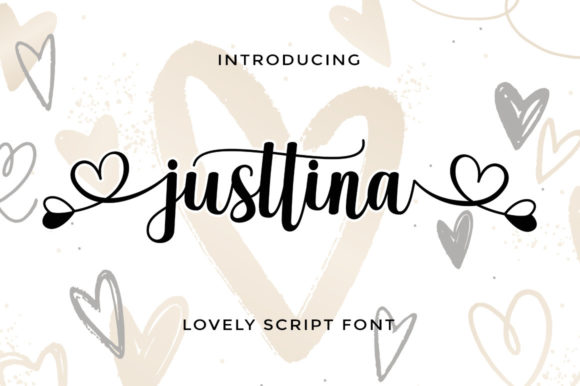
Justtina Script: Elegance for Modern Design
There’s a specific moment in every design project where the typography either elevates the entire composition or falls flat. You’ve likely experienced it—staring at a layout that has strong imagery and a solid concept, but the text feels sterile or disconnected. This is where a premium font like Justtina Script enters the conversation. It isn’t just a collection of letters; it is a design asset that brings a distinct personality to the table. As a gorgeous and romantic script font, Justtina Script bridges the gap between traditional calligraphy and modern digital requirements, offering a fluid, sophisticated aesthetic that feels personal yet polished.
For designers, entrepreneurs, and content creators, the choice of typeface is rarely just about looks; it is about communication. A font carries the weight of your brand identity before a single word is read. Justtina Script offers a specific visual language: one of elegance, intimacy, and artistic flair. If you are looking to add a touch of warmth to your marketing materials or elevate a logo design with a handwritten flourish, understanding how to harness the power of this typeface is essential.
The Anatomy of Romance and Style
Visually, Justtina Script is defined by its flowing, connected letterforms that mimic natural handwriting. It falls into the category of a script font, but it leans heavily into a modern calligraphy style. The strokes are fluid, featuring varying weights that simulate the pressure applied by a real pen or brush. This variation in line thickness adds depth and texture, preventing the text from looking flat or mechanical. The "personality" of the font is undeniably romantic and soft, yet it maintains a level of clarity that is crucial for professional use.
One of the standout features of Justtina Script is its versatility in expressing emotion. Unlike a stiff sans serif font, which communicates efficiency and structure, this handwritten font communicates emotion and creativity. The letters often feature gentle loops and swashes that suggest movement. However, because it is a premium font designed for professional output, it avoids the illegibility often found in free script alternatives. The x-height is generous enough to ensure readability, even when used in shorter paragraphs or descriptive subheadings.
For those working on brand identity, this typeface serves as a voice for brands that want to appear approachable, luxurious, or artisanal. It captures a human touch that resonates with audiences tired of the sterile, corporate aesthetic that dominated the last decade of web design.
Unlocking the Potential: PUA Encoding and Glyphs
A significant technical advantage of Justtina Script is its PUA (Private Use Areas) encoding. In practical terms, this is a game-changer for users who may not be experts in advanced typography software. PUA encoding means that all the extra glyphs, swashes, and alternates included with the font are accessible even in basic text editors or design tools that do not support OpenType features natively.
Why does this matter to you? It means you have access to a massive toolkit of stylistic variations without needing to navigate complex software menus. If you want to swap out a standard lowercase "h" for one with a longer tail to balance out a word, you can do so with ease. This capability allows for a level of customization usually reserved for high-end editorial design.
When you are working on packaging design or a wedding invitation, these details make the difference between a generic layout and a bespoke creation. The swashes allow you to connect words fluidly or add decorative flourishes at the beginning and end of a phrase. This creates a sense of cohesion and flow, guiding the viewer's eye naturally across the page or screen.
Practical Applications: From Packaging to Pixels
Where does Justtina Script truly shine? While it is beautiful on its own, its effectiveness depends on the context of your project. As a display font, it is best used for headlines, logos, and short bursts of text where its intricate details can be appreciated at larger sizes.
Print and Packaging
This font looks stunning on physical products. If you are designing labels for artisanal goods, cosmetics, or boutique food items, Justtina Script adds an immediate sense of quality and care. It suggests that the product inside is crafted with attention to detail. It is equally effective for poster design, flyer layouts, and stationery. The romantic nature of the font makes it an obvious choice for wedding stationery, but don't limit it there—it works beautifully for high-end menu designs or boutique signage.
Digital Presence and Social Media
In the realm of social media graphics, standing out is difficult. A scroll-stopping image often relies on a strong typographic element. Justtina Script can be used to create quote graphics, promotional banners, or cover photos that feel personal and engaging. On platforms like Instagram or Pinterest, where visual appeal drives engagement, a creative font like this helps establish a consistent aesthetic that followers can recognize instantly.
Logo Design and Branding
Using a script font for a logo is a bold move, but when done right, it creates a powerful mark. Justtina Script works well for lifestyle brands, photography studios, fashion boutiques, and creative agencies. However, it requires careful execution. Because the font is decorative, it often works best as the primary wordmark paired with a clean sans serif font for supporting text. This contrast ensures that your brand name is legible while maintaining its artistic flair.
Ultimately, Justtina Script is more than just a typeface; it is a tool for storytelling. Whether you are launching a new product, redesigning a website, or creating a social media campaign, it offers a way to connect with your audience on a human level. It brings warmth to the digital world and elegance to the printed page. By understanding its strengths and applying it with strategic intent, you can transform standard layouts into compelling visual narratives that resonate with your audience.